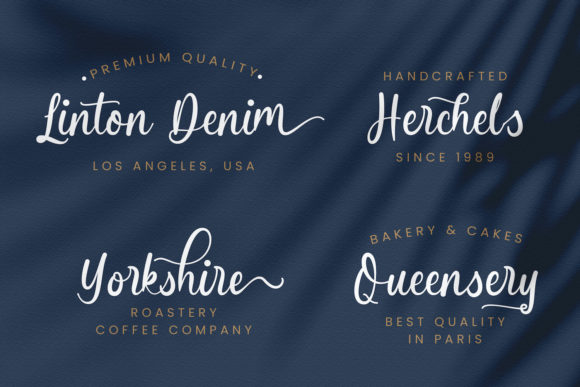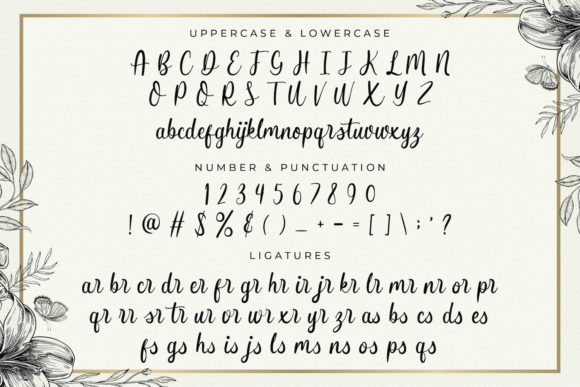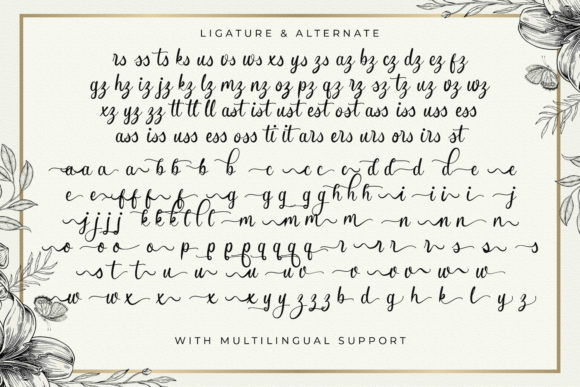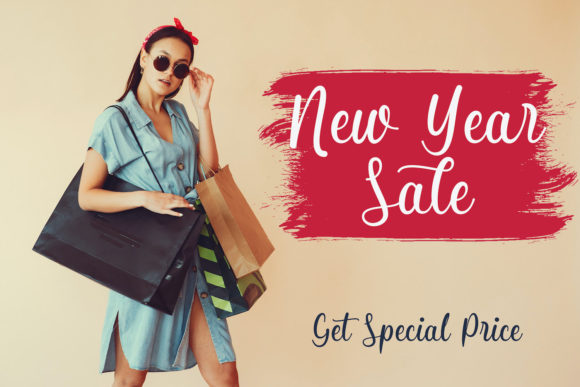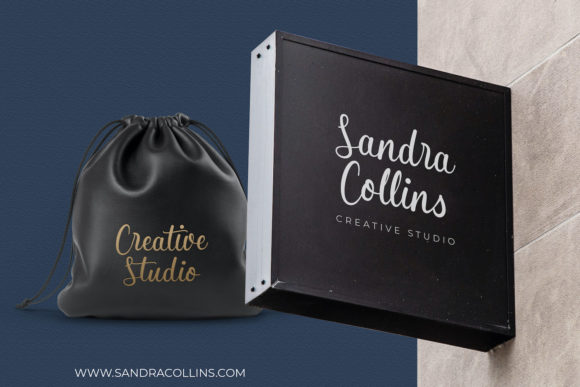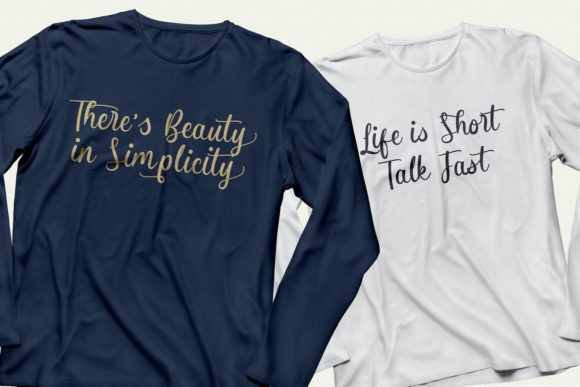
The Perfect Touch: Unlocking the Magic of Butterfly Winter Font
Have you ever been brainstorming a new project, and suddenly, a spark of inspiration hits you? It’s that feeling of excitement and possibility that makes creativity so exhilarating. For designers, finding the right tools to bring their ideas to life can be just as thrilling. That’s where the Butterfly Winter Font comes in – a delicate and elegant handwritten script font that adds a touch of sophistication to any design.
With its beautiful and well-balanced design, the Butterfly Winter Font is perfect for adding a personal touch to your most creative ideas. Whether you’re working on a wedding invitation, a book cover, or a social media campaign, this font is sure to make your designs stand out. Plus, its PUA encoding makes it easy to access the available glyphs and swashes, giving you endless possibilities to experiment and express yourself.
Butterfly Winter Font Key Features
- Font Family: Butterfly Winter is a unique, elegant script font designed to evoke a sense of winter wonder.
- Character Set: Includes a wide range of characters, including uppercase and lowercase letters, numerals, punctuation, and special characters.
- Unique Characteristics: Features intricate, hand-drawn details and subtle texture, giving it a distinctive, high-end look.
Designer Review: Butterfly Winter Font
Overall, I found the Butterfly Winter Font to be a visually stunning and unique addition to any design project. ✨ The elegant, whimsical feel of the font makes it perfect for projects that require a touch of sophistication and romance. ✨ The high contrast between the thick and thin strokes adds a level of complexity and visual interest that keeps the viewer engaged.
Here are some specific features that work well:
- High contrast between thick and thin strokes
- Elegant and whimsical feel
- Perfect for projects that require a touch of sophistication and romance
However, I did encounter some limitations that prevented me from giving it a full 5-star review: ⚠️ The font is not suitable for projects that require high legibility, such as body text or signage. Additionally, the font may not display consistently across different devices and operating systems.
Overall, I would recommend the Butterfly Winter Font for projects that require a touch of elegance and whimsy. While it has some limitations, its unique aesthetic and high contrast make it a great choice for designers looking to add some visual interest to their designs.
The Butterfly Winter Font is ideal for creating a whimsical and elegant look in your designs. Some common use cases include:
- Children’s book illustrations.
- Christmas and winter-themed designs.